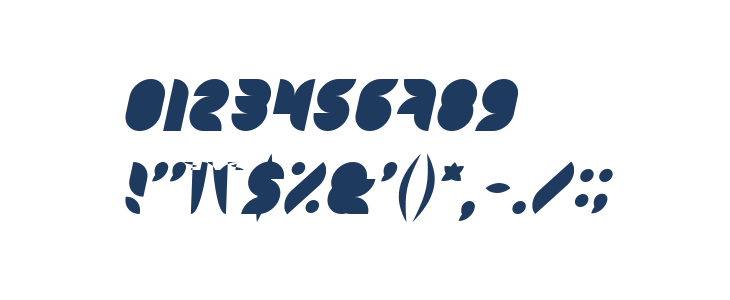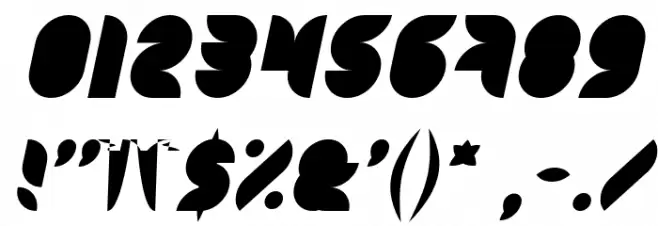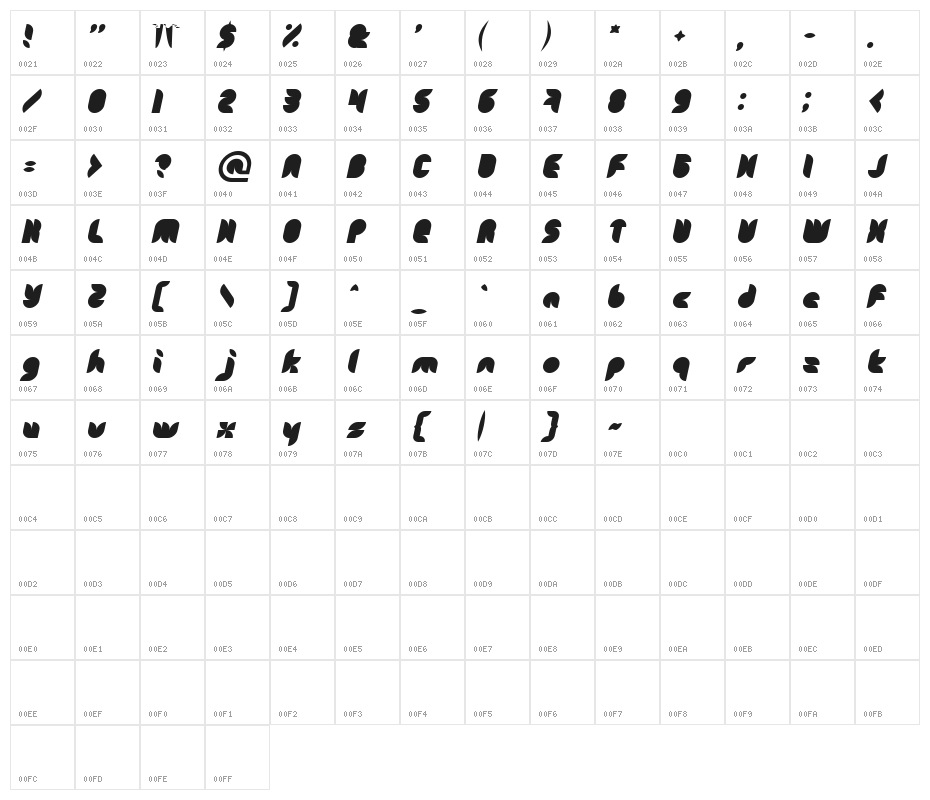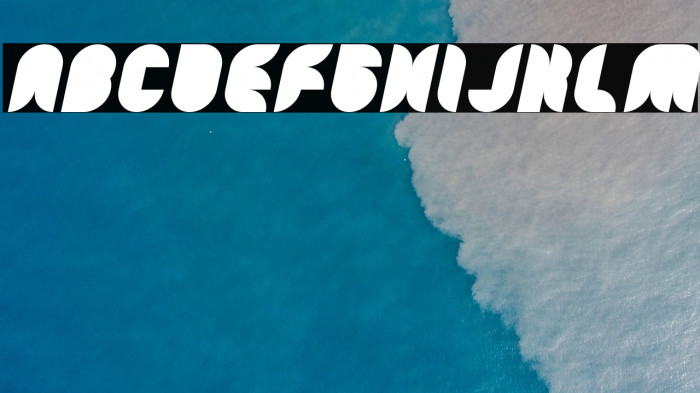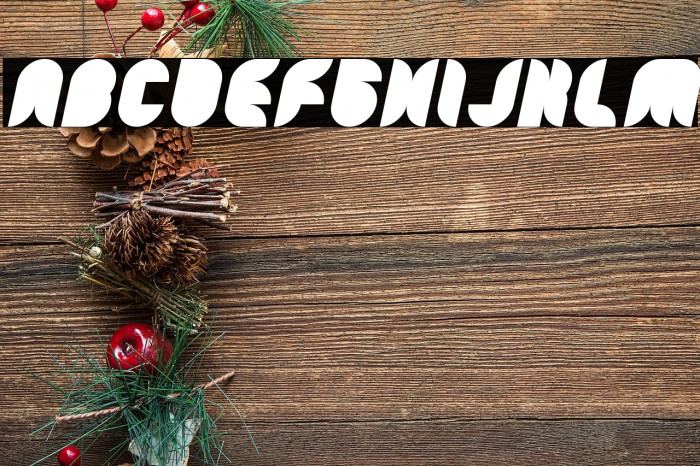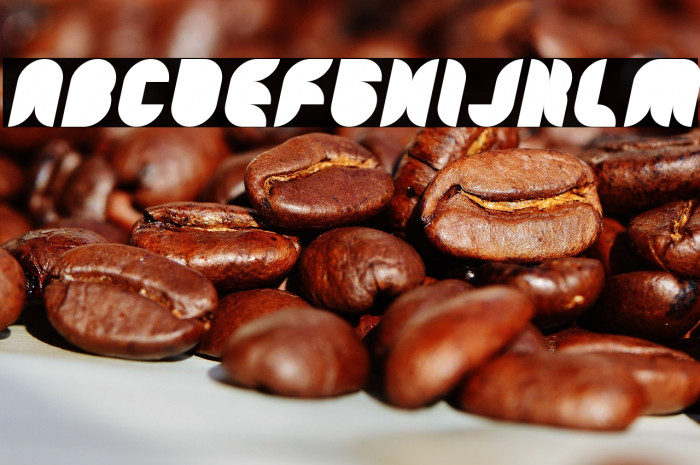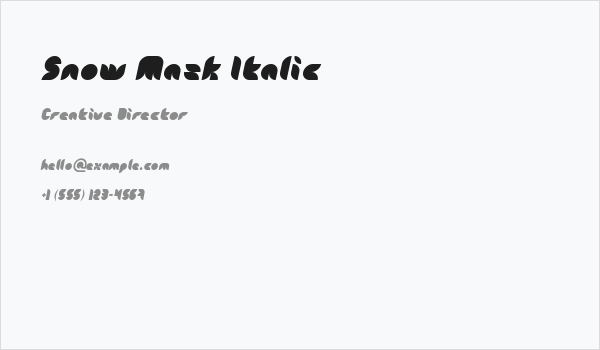
Snow Mask Italic Font
Snow Mask Italic Description
This font features a bold and dynamic style with a strong italic slant, giving it a sense of motion and energy. The characters are thick and rounded, with a playful and modern appearance. The uppercase and lowercase letters maintain a consistent weight, contributing to a cohesive look. The numbers and special characters follow the same design principles, ensuring uniformity across all glyphs. The font's unique style makes it stand out, with each character having a distinct and memorable shape.
| Proposed Projects | Ideal for branding, posters, and headlines where a bold and energetic look is desired. |